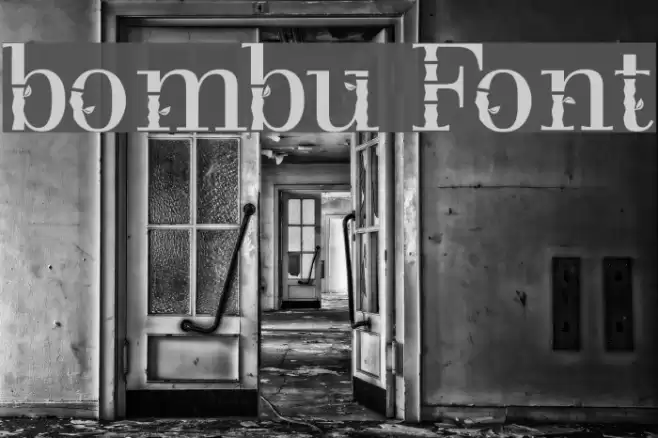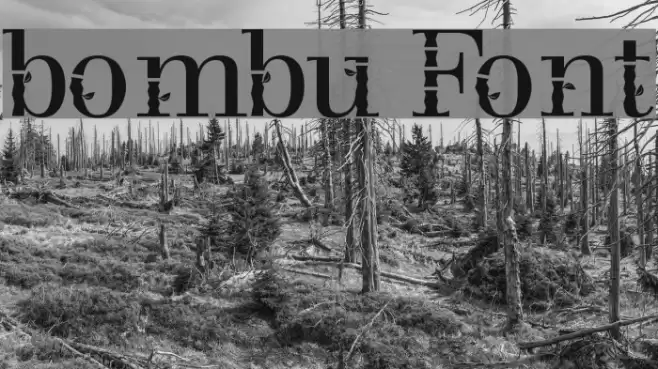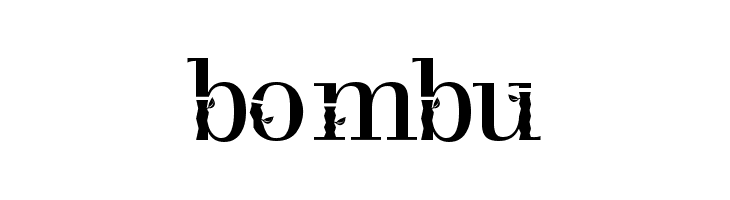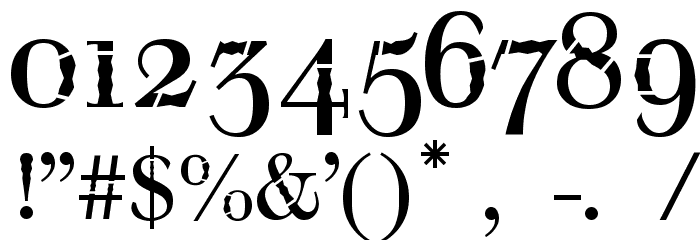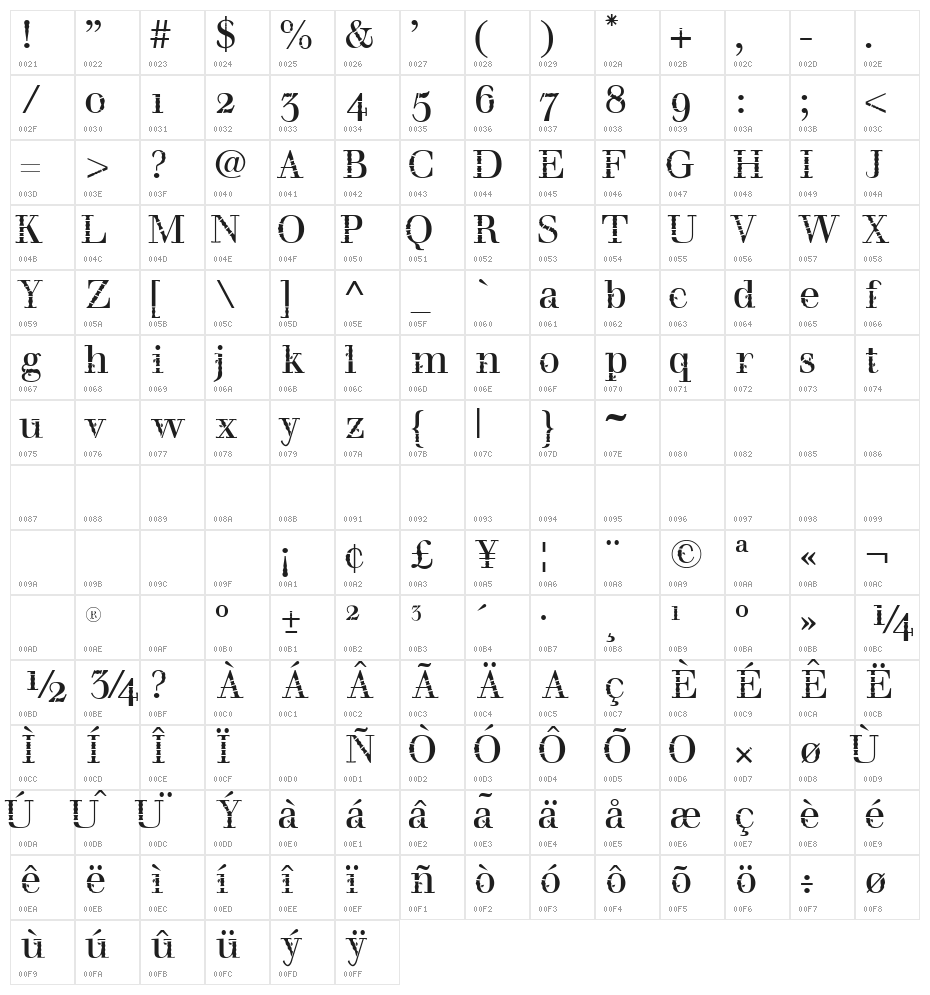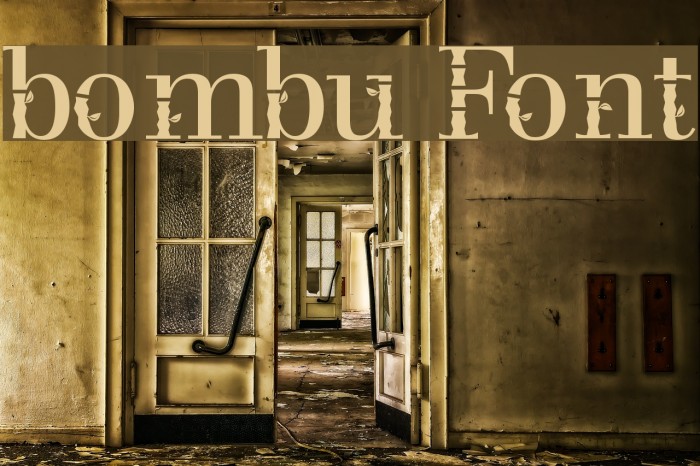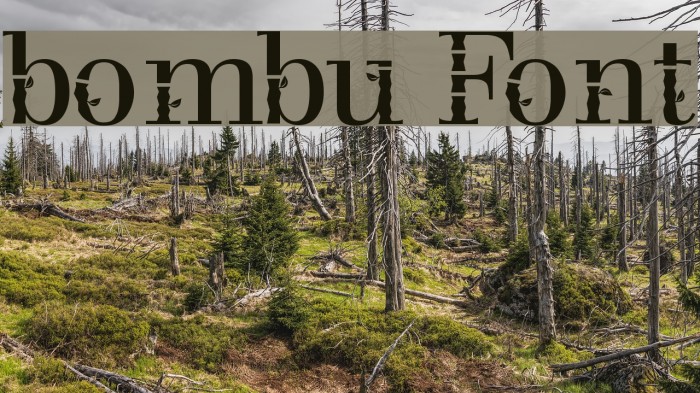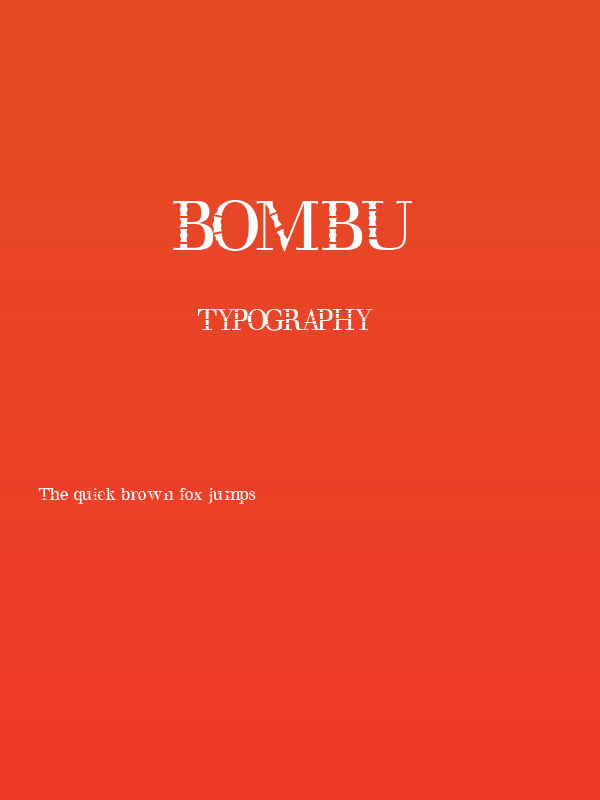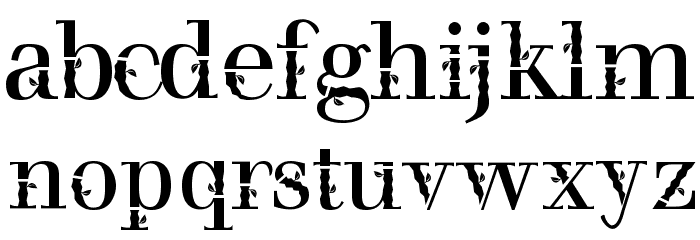
bombu Font
bombu Description
This font features a distressed and textured appearance, giving it a unique and edgy look. The characters are serif-based, with a classic structure that is disrupted by a grunge effect, making it stand out with a bold and artistic flair. The uppercase and lowercase letters maintain a traditional serif form, but the added texture creates a sense of movement and dynamism. Numbers and special characters follow the same design, ensuring consistency across all glyphs. This font is ideal for projects that aim to convey a sense of rebellion, creativity, or vintage charm, as it combines classic serif elements with a modern, distressed twist.
A distressed serif font with a bold, textured appearance from Decorative fonts.
- Proposed Projects: Ideal for album covers, posters, branding for edgy or vintage-themed products, and creative editorial designs.
- Overall Style: Vintage, Decorative